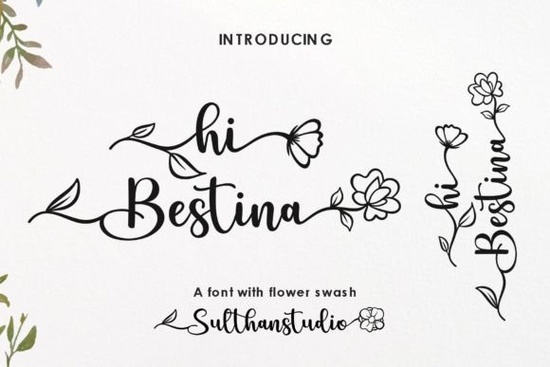
If you're looking for a font that brings warmth and personality to your designs, Hi Bestina Font is a great choice. It’s a handwritten decorative typeface that feels like a personal note from a friend cute, lively, and full of charm. The subtle inclusion of leaves and flowers adds a natural, organic touch that works well in invitations, branding, packaging, and digital art.
What makes Hi Bestina Font stand out?
Unlike many fonts that limit access to special characters, Hi Bestina uses PUA (Private Unicode Area) encoding. This means every swash, alternate character, and floral flourish is easy to access no complex keyboard shortcuts or extra software needed. Whether you’re using Adobe Illustrator, Photoshop, or Canva, you’ll find it simple to use the full range of design elements.
The font’s playful yet elegant style fits perfectly with themes like nature-inspired crafts, baby shower invites, wedding stationery, and small business branding. It’s especially useful if you're creating printable designs for platforms like Etsy or Printful, where unique visuals can help your products stand out.
How to use Hi Bestina Font in your projects
- For print-on-demand sellers: Pair it with soft pastel backgrounds or watercolor textures for t-shirts, mugs, or tote bags with a handmade feel.
- For crafters: Use it in digital scrapbooking layouts, greeting cards, or DIY planners. The flourishes look fantastic when layered over textured paper designs.
- For small businesses: Try it on menus, labels, or social media graphics to give your brand a friendly, approachable vibe.
You’ll notice how quickly this font can transform a plain design into something more expressive. The natural flow of the handwriting mimics real pen strokes, making it ideal for personal touches in professional work.
Why PUA encoding matters for designers
Many decorative fonts require special tools or manual character insertion, which slows down workflow. With Hi Bestina, all the extras like fancy loops, leafy swirls, and flower accents are built-in and instantly available. You don’t need to hunt for glyphs or worry about missing parts. This saves time and reduces frustration, especially when working under deadline pressure.
It’s also compatible across most design programs, so whether you’re on Windows, Mac, or using web-based tools, you’ll have consistent results.
For inspiration, take a look at what others are doing with similar fonts. Hi Bestina Font has been used in everything from floral wedding suites to cozy coffee shop branding proof that it’s versatile and widely loved.
Final thoughts: Is Hi Bestina right for your next project?
If you’re drawn to fonts that feel personal, artistic, and slightly whimsical, then yes it’s worth adding to your toolkit. It’s not just another pretty script; it’s a practical tool for anyone who wants to add a little magic to their designs without spending hours figuring out how to use it.
Whether you're designing for fun or running a creative side hustle, this font gives you instant visual appeal with minimal effort. And because it’s PUA-encoded, you’ll never miss a detail.